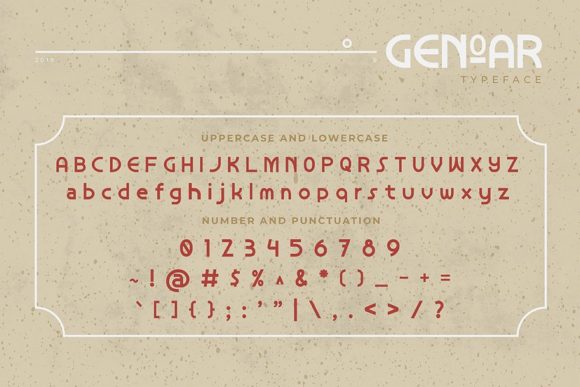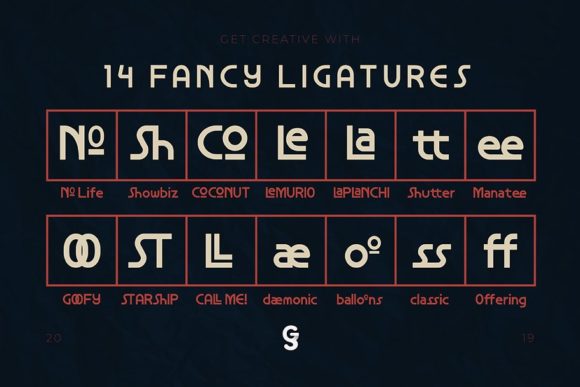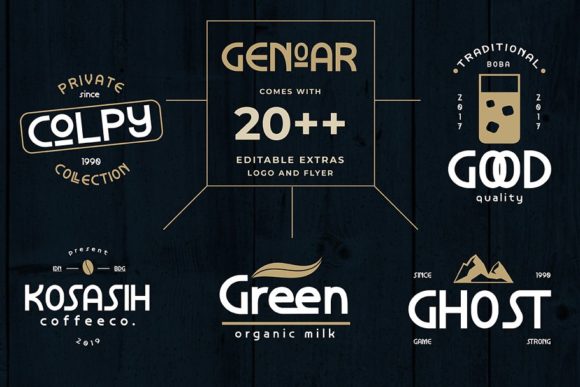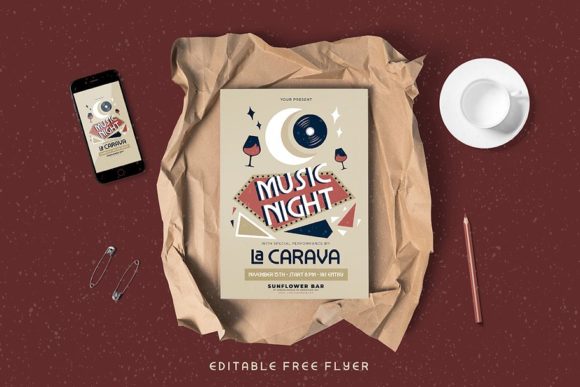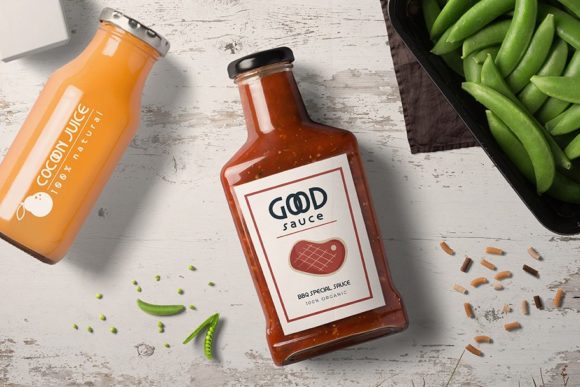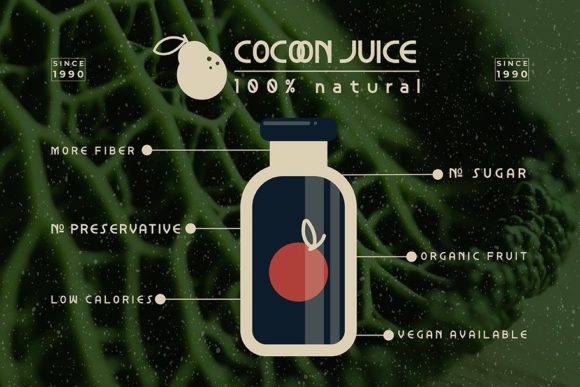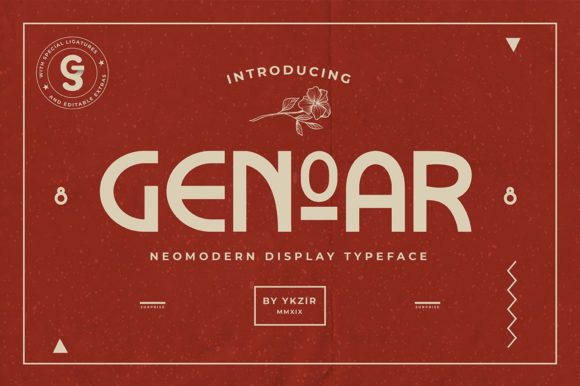
Genoar Font: Elevate Your Designs with a Touch of Sophistication
In the world of typography, fonts play a crucial role in conveying the tone and personality of a design. For designers and crafters looking to add a touch of elegance and sophistication to their work, Genoar Font is an excellent choice. This neo-modern display font boasts a unique style that is both timeless and captivating, making it perfect for a wide range of design projects.
The Unique Style of Genoar Font
Genoar Font is a masterclass in neo-modern design, blending classic elements with a fresh, contemporary twist. Its unique style is characterized by clean lines, geometric shapes, and a sense of fluidity that gives it a dynamic feel. This font is not just a means of communication; it’s an artistic statement that can elevate your designs and make them stand out.
Key Features of Genoar Font
- Neo-Modern Design: Genoar Font embodies the essence of neo-modern typography, making it perfect for designers who appreciate a blend of tradition and innovation.
- Unique Style: Its distinctive character set and elegant lines make Genoar Font a versatile choice for various design applications, from branding and advertising to packaging and web design.
- Timeless Appeal: Unlike trends that fade over time, Genoar Font’s classic undertones ensure it remains relevant and stylish for years to come.
- Sophisticated Look: The font’s sophisticated appearance makes it an excellent choice for projects that require a touch of luxury and elegance.
Applications of Genoar Font
The versatility of Genoar Font makes it suitable for a myriad of design projects. Here are some of the areas where this font truly shines:
- Branding and Logo Design: Create a lasting impression with a logo that exudes sophistication and elegance.
- Advertising and Marketing Materials: Stand out in a crowded marketplace with eye-catching ads and promotional materials.
- Web Design: Enhance the user experience with a font that is both readable and visually appealing.
- Packaging Design: Add a touch of luxury to your products with packaging that looks premium and high-end.
- Social Media Graphics: Engage your audience with social media posts that are not only informative but also aesthetically pleasing.
Why Choose Genoar Font?
With so many fonts available, why should Genoar Font be your go-to choice? Here are a few compelling reasons:
- Uniqueness: Genoar Font offers a unique style that can set your designs apart from the competition.
- Versatility: Its adaptability makes it suitable for a wide range of design projects, from digital to print.
- Timelessness: Genoar Font’s classic appeal ensures that your designs won’t become outdated anytime soon.
- Ease of Use: Designed with the user in mind, Genoar Font is easy to integrate into your projects, making the design process smoother.
Genoar Font is more than just a typeface; it’s a design statement. Its neo-modern, unique style combined with its timeless appeal makes it an invaluable asset for designers and crafters looking to infuse their work with sophistication and elegance. Whether you’re working on a branding project, creating marketing materials, or designing for the web, Genoar Font can help you achieve your design goals with style. Embrace the beauty of Genoar Font and let it be the centerpiece of your next design project.
Unlock the full potential of your designs with Genoar Font. Its unique blend of neo-modern style and timeless sophistication is sure to take your work to the next level.